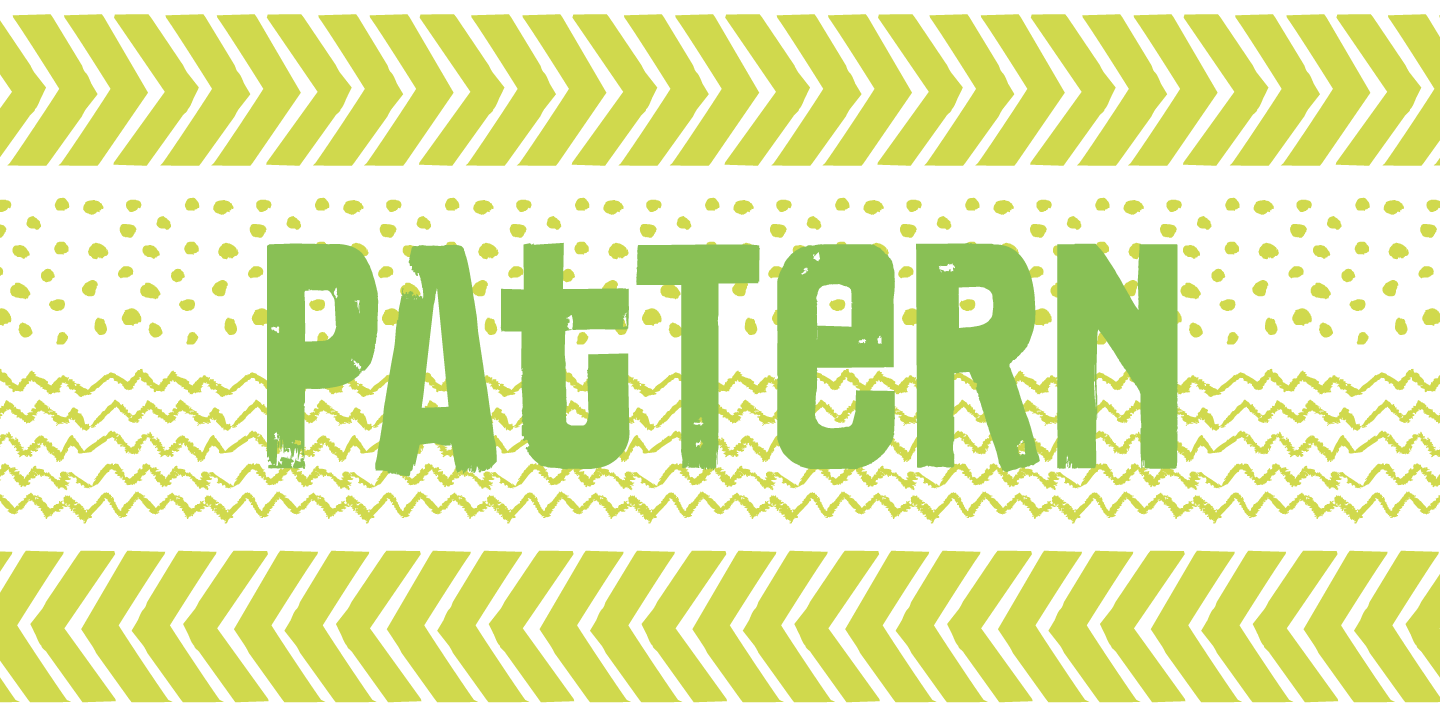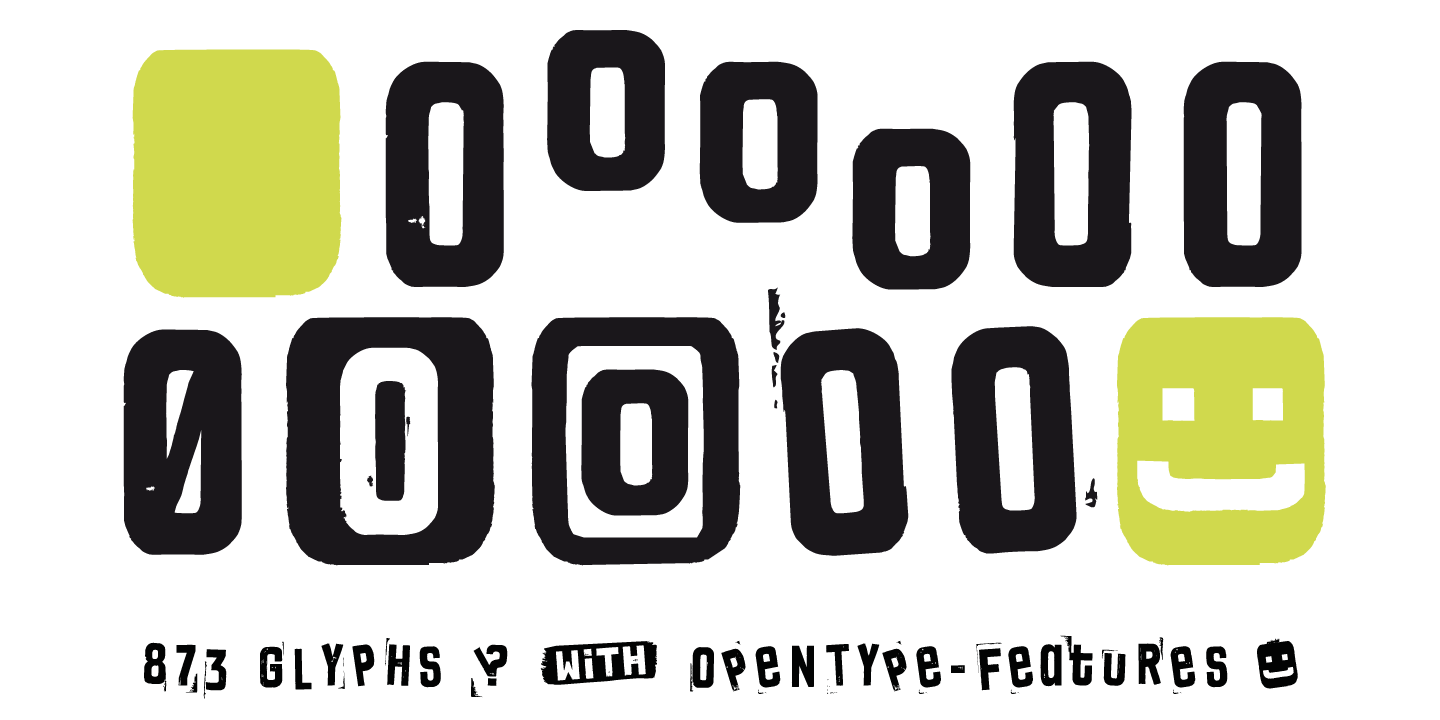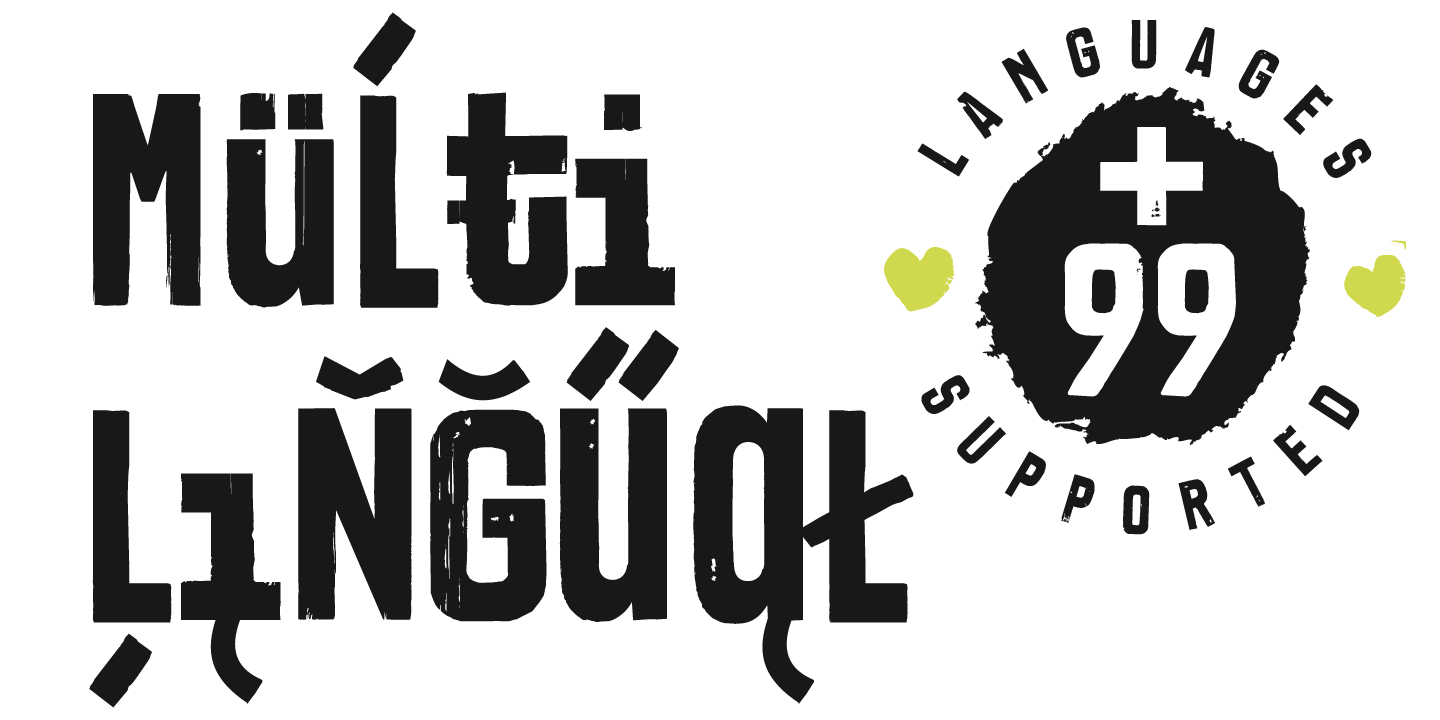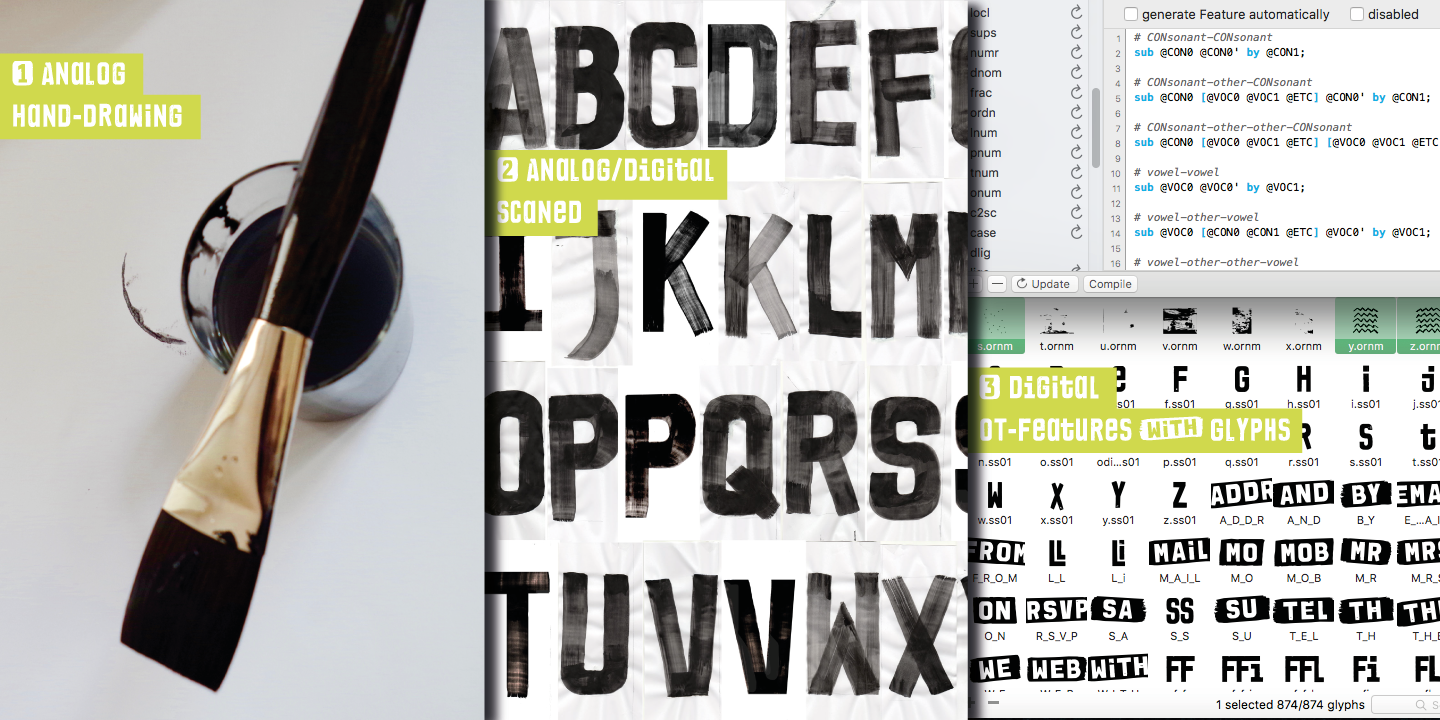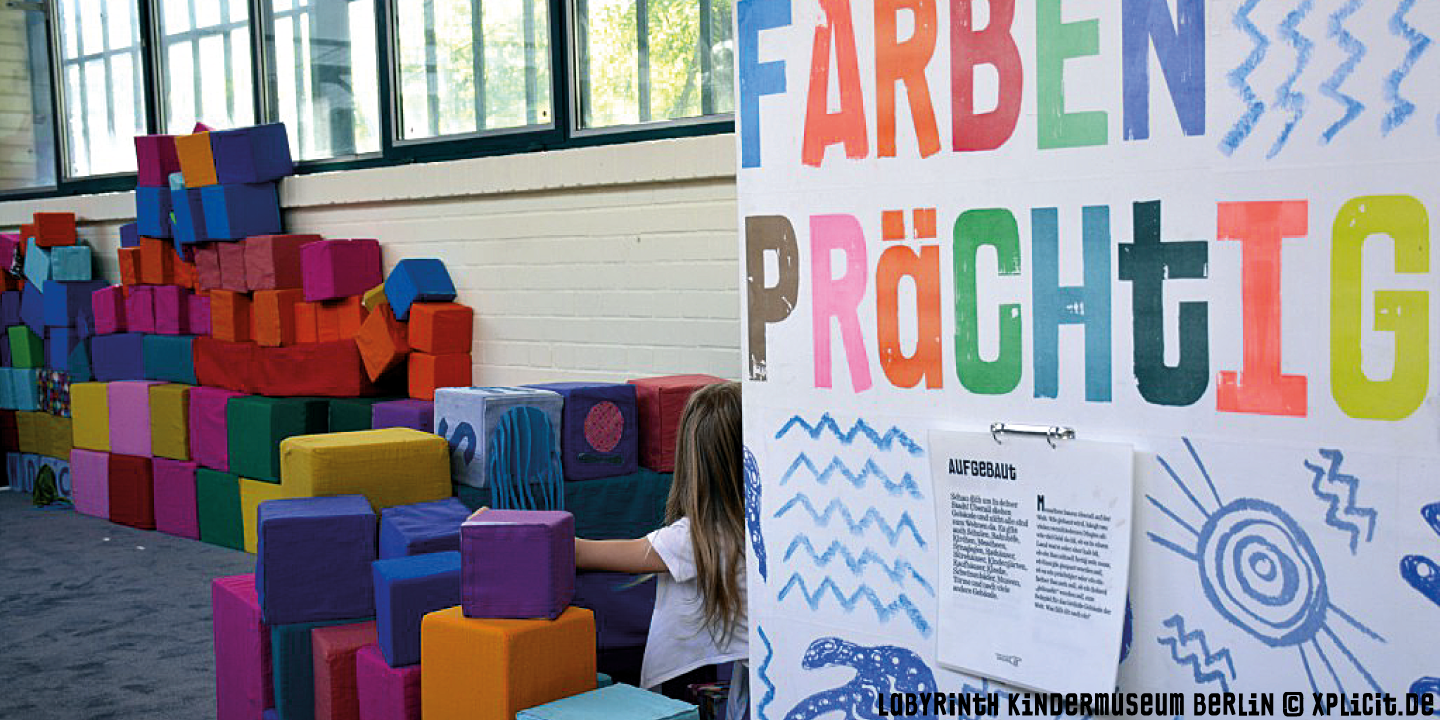
Introduction to Brush Poster Grotesk Regular Font
The typeface Brush Poster Grotesk is designed in 2017 for the children exhibition 1,2,3 Kultummel from Labyrinth Kindermuseum Berlin by xplicit, Berlin (Annette Wüsthoff, Alexander Branczyk, Mascha Wansart (illustrations)).
Manuel Viergutz extended the font with some further glyphs & extras The rough sans serif display typeface is created analogous by hand and brush.